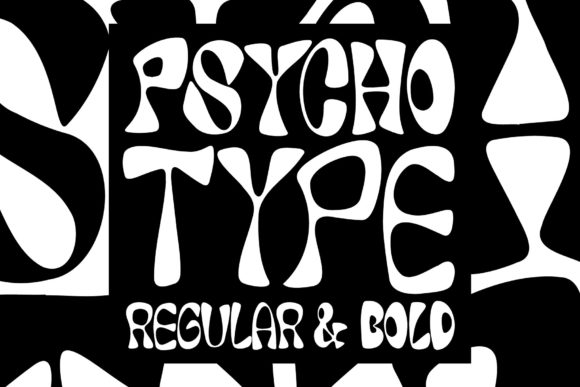
Discover Psychotype - An Artistic Masterpiece for Unconventional Typography
Prepare to be mesmerized by Psychotype, a groundbreaking display font family that redefines artistic expression in digital lettering. Its mesmerizing uppercase characters dance with psychedelic flair, creating a captivating aura that demands attention. Immerse yourself in the world of Psychotype and let your creativity flourish with this unique and awe-inspiring font.
Unlock Endless Creative Possibilities
Unleash the potential of Psychotype and embark on a journey of limitless design possibilities. Whether you're a tattoo artist seeking to create intricate and bold body art, a graphic designer looking to add a touch of audacity to your projects, or a creative professional seeking a font that embodies individuality and style, Psychotype is your ultimate companion.
Crafted with Precision, Inspired by Art
Every stroke and curve of Psychotype is carefully crafted to evoke emotion and intrigue. Its intricate details and captivating glyphs make it the perfect choice for logos, posters, headlines, book titles, and any medium where powerful visual impact is desired. Let Psychotype elevate your designs to new heights of artistry and captivate your audience with its enigmatic charm.
A Font Beyond Comparison
Psychotype breaks free from convention, daring to be different and captivating. Its distinctive style sets it apart from the mundane, making it the perfect choice for those who seek bold and unforgettable designs. With its ability to transform ordinary text into stunning visual statements, Psychotype is the key to unlocking your creative potential and leaving a lasting impression on your audience.